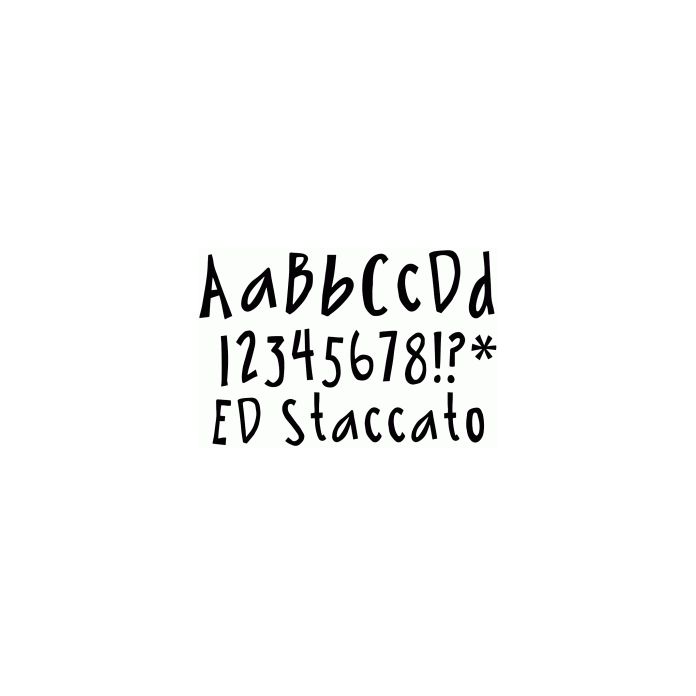
This font has a quirky handcrafted look and the letters tip and turn and shift up and down from the baseline for a fun irregular style. The font includes uppercase and lowercase letters, numbers, and basic punctuation.